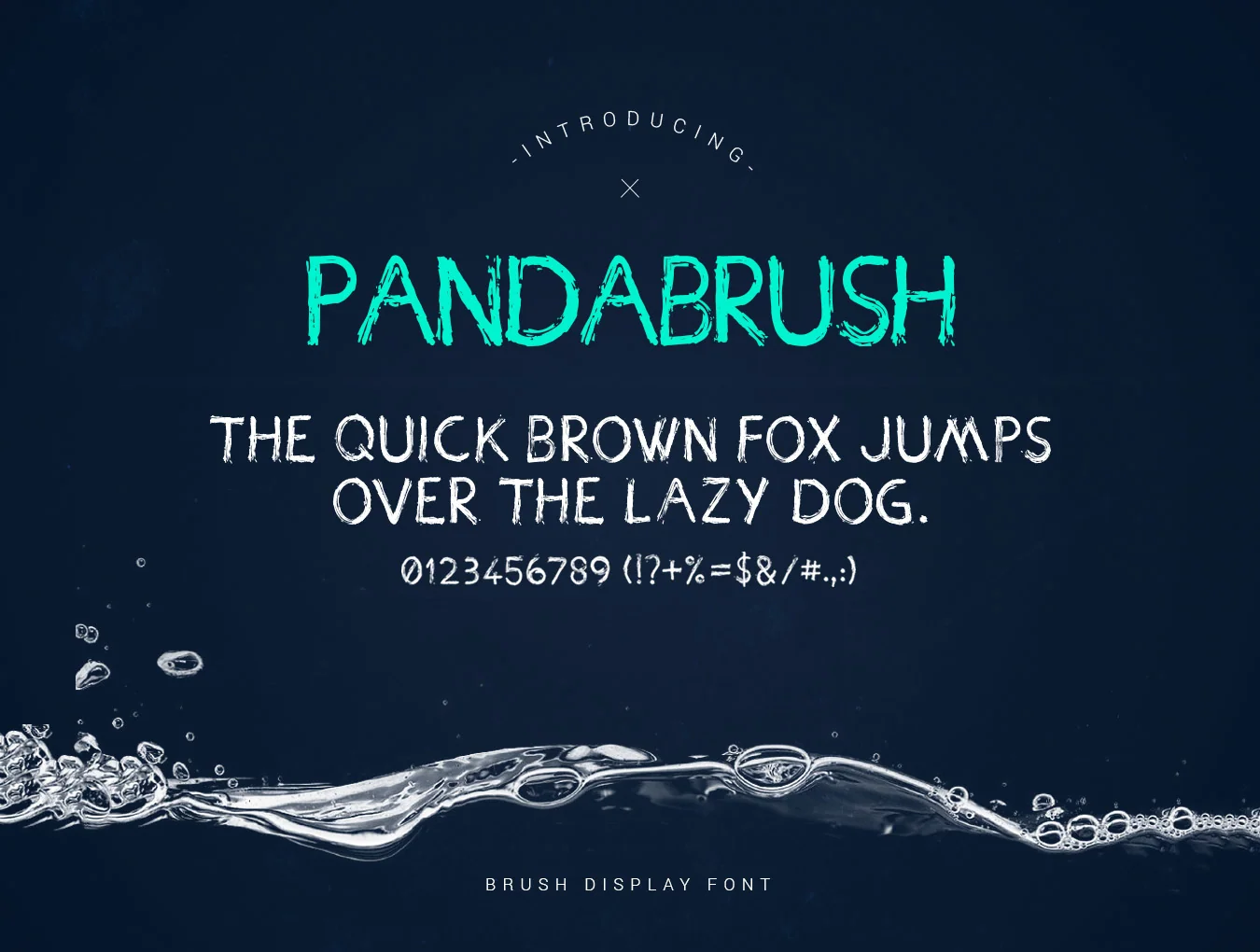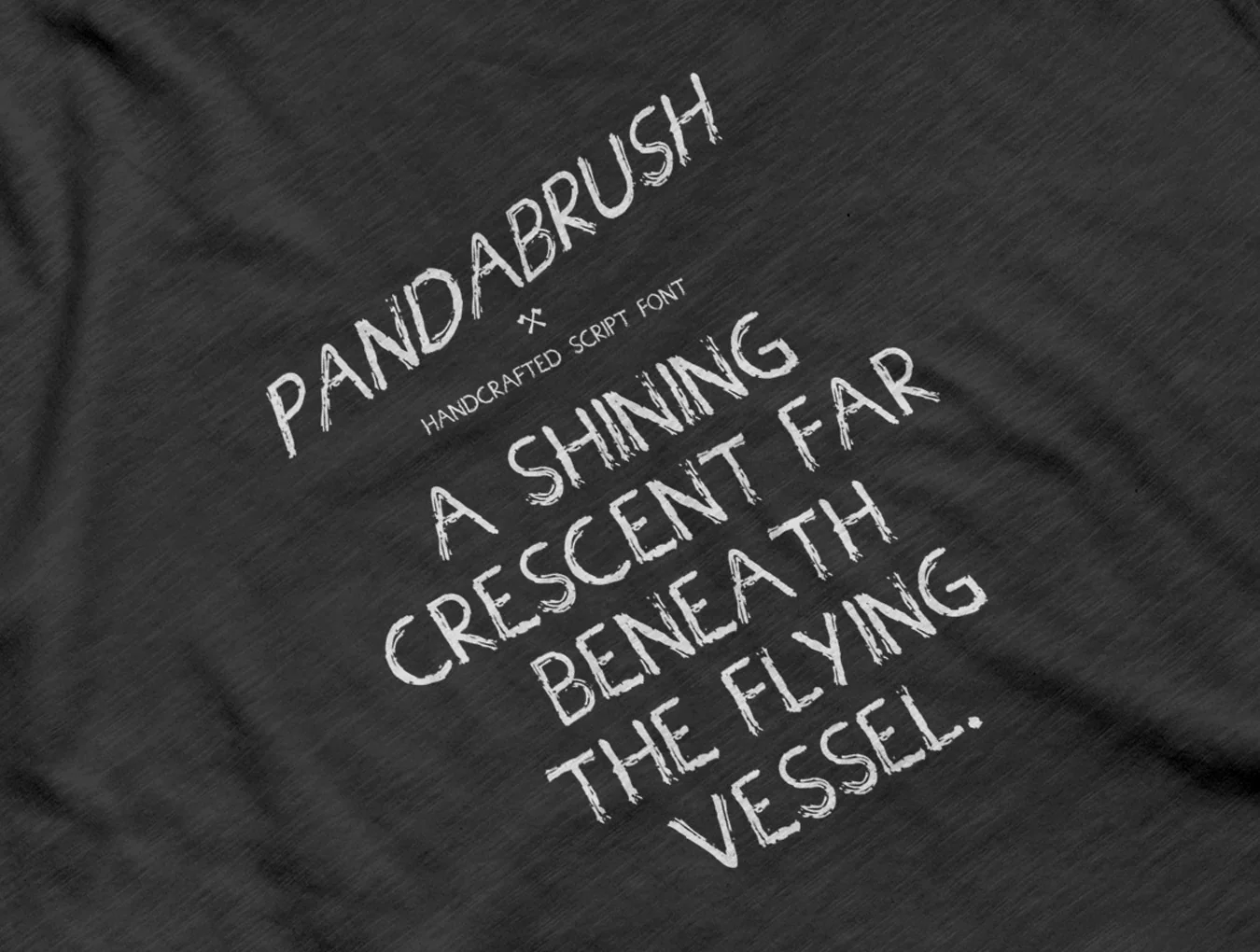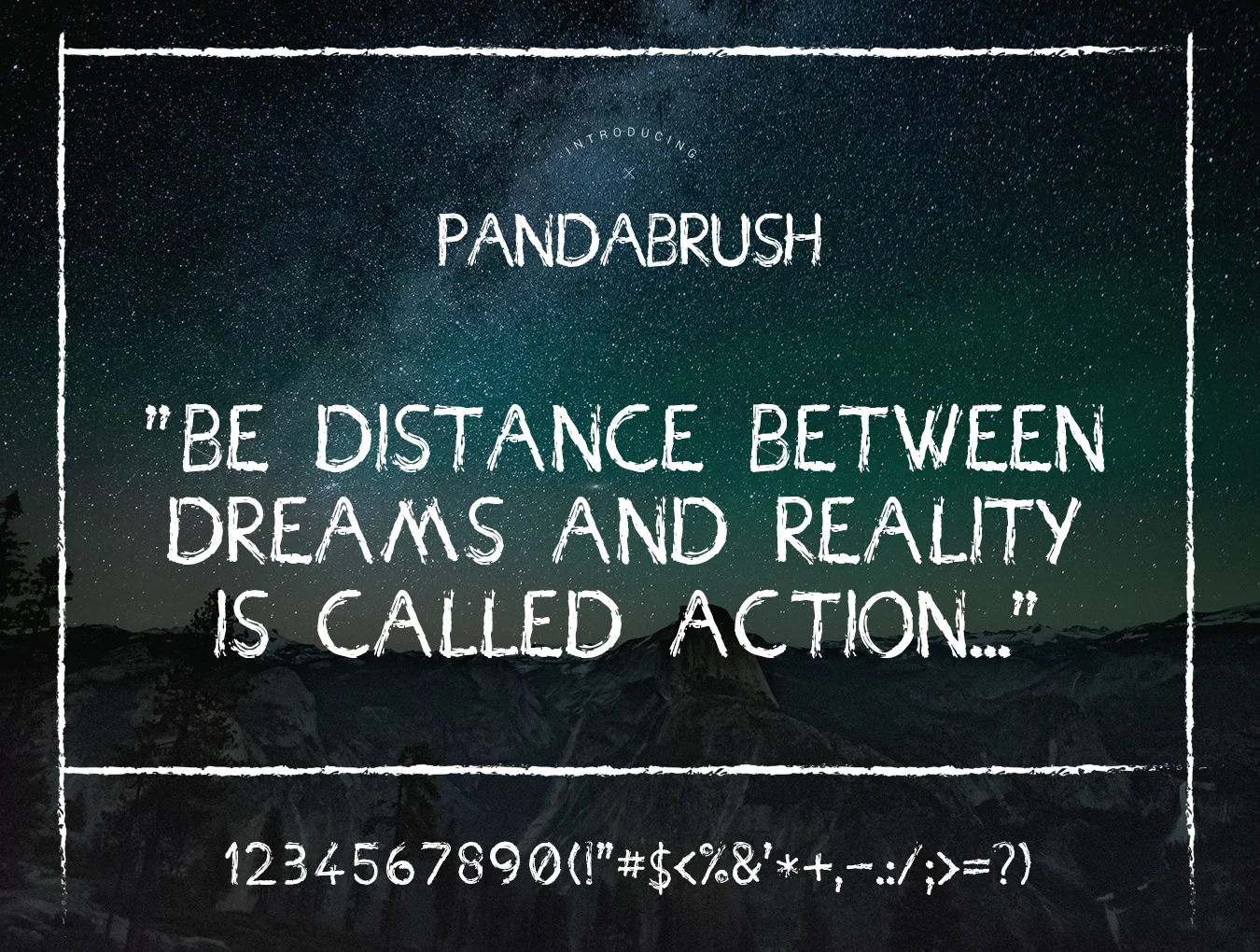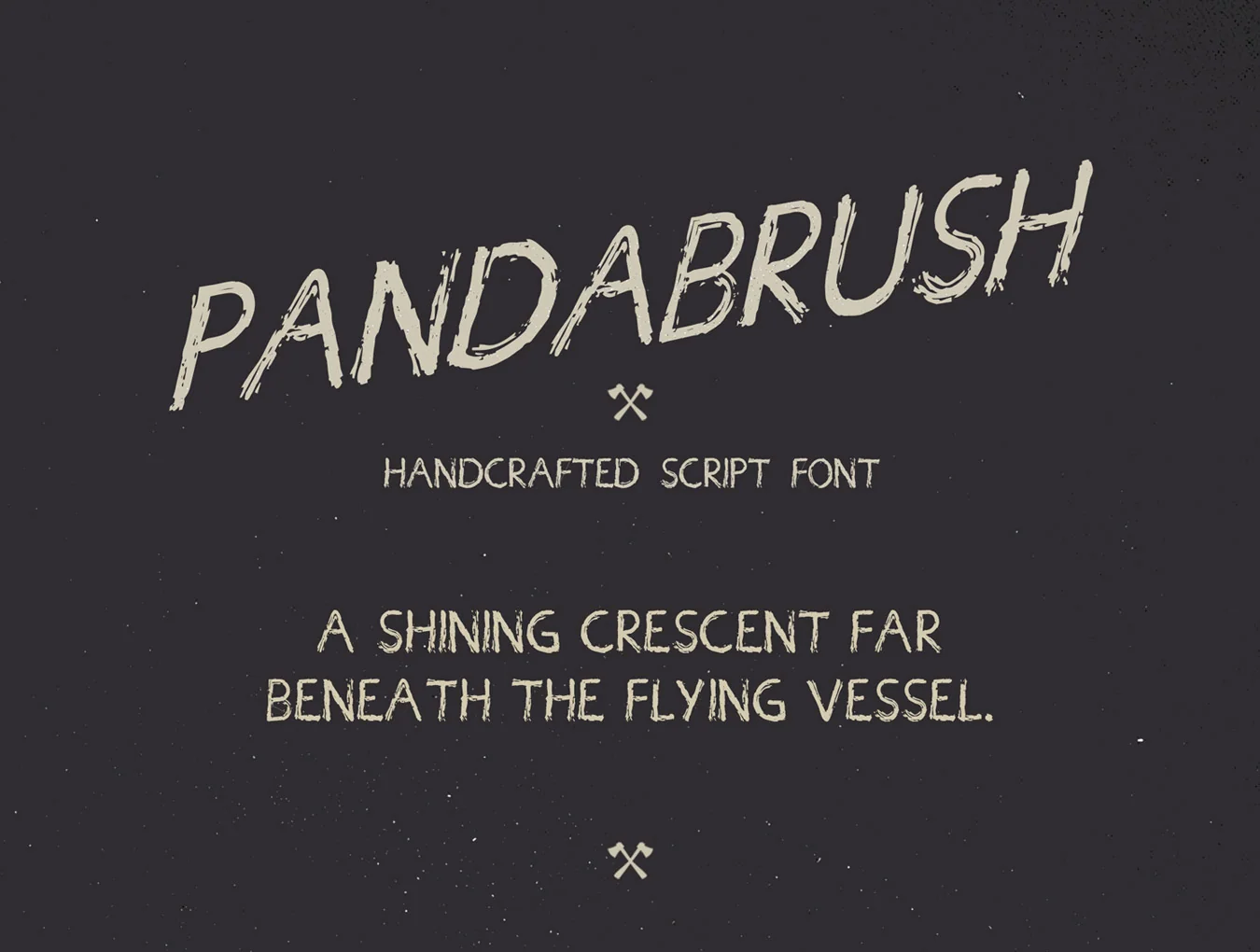
Pandabrush Typeface
Pandabrush is a handmade brush-style font with uppercase characters.
Pandabrush is a hand-drawn brush typeface with uppercase characters, perfect for logos, branding, print designs, and bold headlines that stand out. It comes with capital letters, numbers, and punctuation.